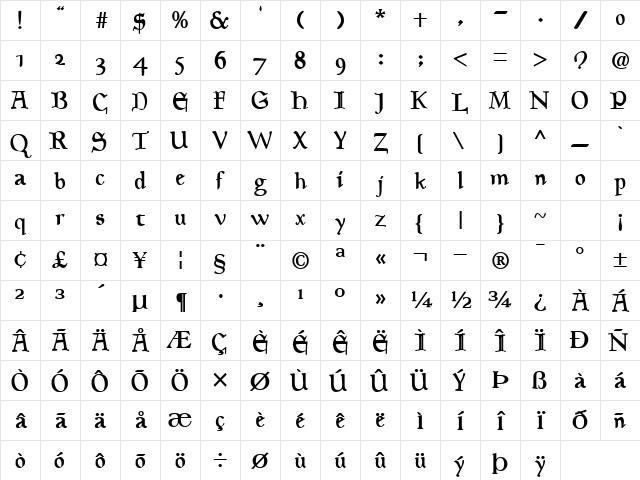
Complete GeneralMotionFont110 Bold glyph index. Displaying only characters natively supported by GeneralMotionFont110 Bold font.
GeneralMotionFont110 is a composed and adaptable typeface that performs quietly and consistently across a wide range of design contexts. Its bold stroke weight gives it real presence on the page.